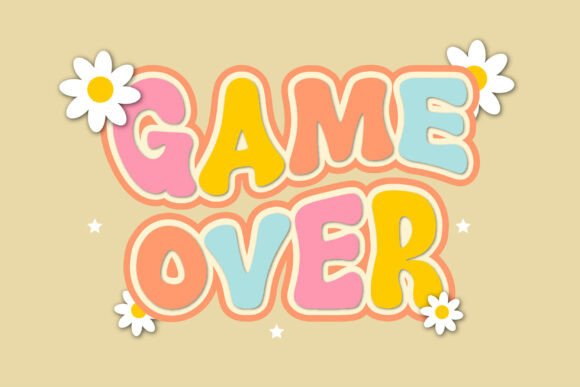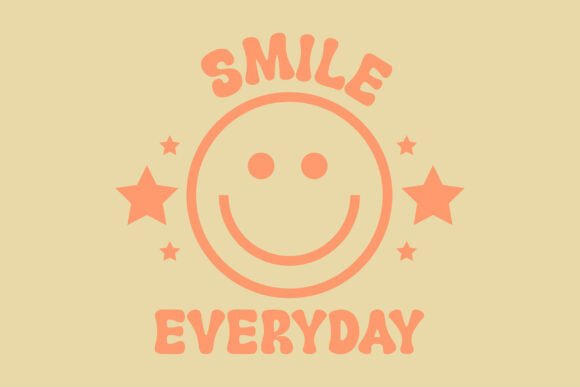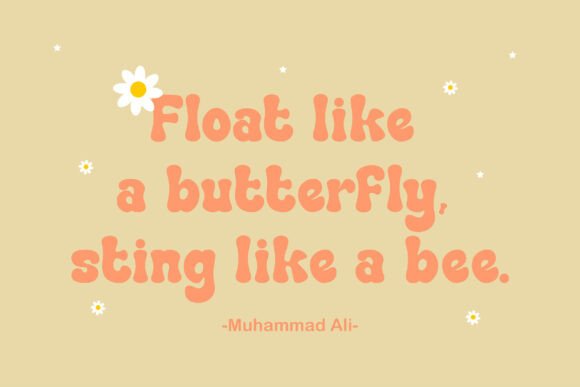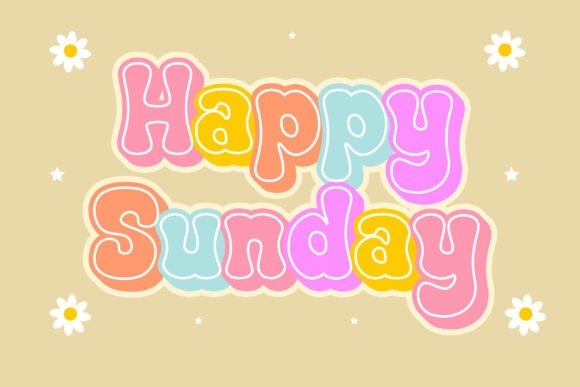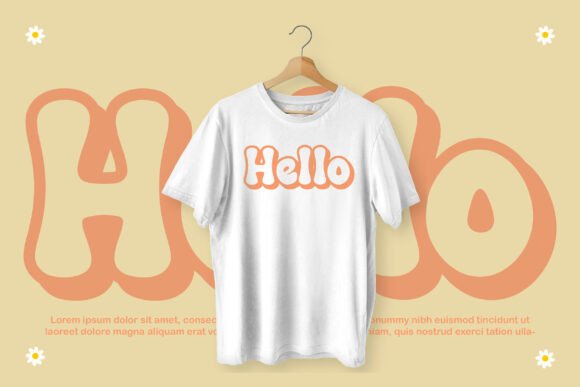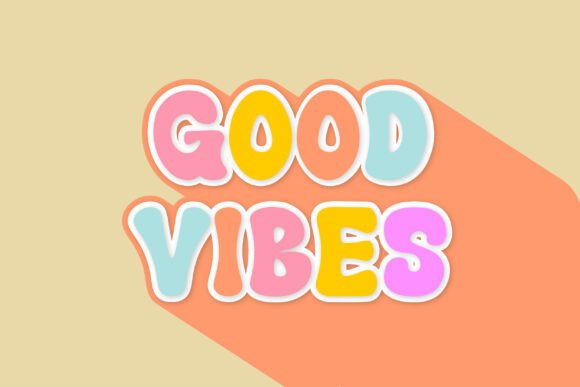
Introducing Groovy Magic Font: Add a Playful Touch to Your Designs
Are you looking for a font that can add a dash of fun and playfulness to your designs? Look no further than Groovy Magic Font! Inspired by bold retro typography, this font is perfect for designers and crafters who want to give their projects a vintage flair. In this article, we’ll explore the features and benefits of Groovy Magic Font, and how it can elevate your designs to the next level.
What is Groovy Magic Font?
Groovy Magic Font is a fun and playful font that’s designed to bring a smile to your face. Its bold strokes and playful curves make it perfect for adding a touch of whimsy to any design. Whether you’re working on a book cover, poster, packaging, merchandise, or logo, Groovy Magic Font is the perfect choice. Its retro-inspired design is sure to grab attention and leave a lasting impression.
Key Features of Groovy Magic Font
- Bold and Playful Design: Groovy Magic Font features bold strokes and playful curves that give it a unique and eye-catching look.
- Retro-Inspired: This font is inspired by classic retro typography, making it perfect for designers who want to add a vintage touch to their designs.
- Versatile: Groovy Magic Font is suitable for a wide range of design projects, including book covers, posters, packaging, merchandise, logos, and more.
- Easy to Read: Despite its bold and playful design, Groovy Magic Font is easy to read, making it perfect for use in a variety of contexts.
Benefits of Using Groovy Magic Font
So why should you choose Groovy Magic Font for your next design project? Here are just a few benefits of using this fun and playful font:
- Adds a Touch of Whimsy: Groovy Magic Font is perfect for designers who want to add a dash of fun and playfulness to their designs.
- Grabs Attention: The bold and playful design of Groovy Magic Font is sure to grab attention and leave a lasting impression.
- Versatile: This font is suitable for a wide range of design projects, making it a great addition to any designer’s toolkit.
How to Use Groovy Magic Font in Your Designs
Groovy Magic Font is easy to use in a variety of design projects. Here are a few ideas to get you started:
- Book Covers: Add a touch of whimsy to your book covers with Groovy Magic Font. It’s perfect for fiction, non-fiction, and children’s book covers.
- Posters: Create eye-catching posters with Groovy Magic Font. It’s perfect for advertising, promoting events, or showcasing your artwork.
- Packaging: Add a vintage touch to your packaging with Groovy Magic Font. It’s perfect for product labels, packaging inserts, and more.
- Merchandise: Create fun and playful merchandise with Groovy Magic Font. It’s perfect for t-shirts, mugs, tote bags, and more.
- Logos: Use Groovy Magic Font to create a unique and eye-catching logo for your business or brand.
Tips and Tricks for Getting the Most Out of Groovy Magic Font
Here are a few tips and tricks for getting the most out of Groovy Magic Font:
- Experiment with Colors: Groovy Magic Font looks great in a variety of colors. Experiment with different color combinations to find the one that works best for your design.
- Play with Size: Groovy Magic Font can be used at a variety of sizes. Experiment with different sizes to find the one that works best for your design.
- Combine with Other Fonts: Groovy Magic Font pairs well with a variety of other fonts. Experiment with different font combinations to find the one that works best for your design.
Groovy Magic Font is a fun and playful font that’s perfect for designers and crafters who want to add a touch of whimsy to their designs. Its bold strokes and playful curves make it perfect for adding a vintage flair to any design. With its versatility, ease of use, and range of applications, Groovy Magic Font is a great addition to any designer’s toolkit. So why not give it a try and see how it can elevate your designs to the next level?